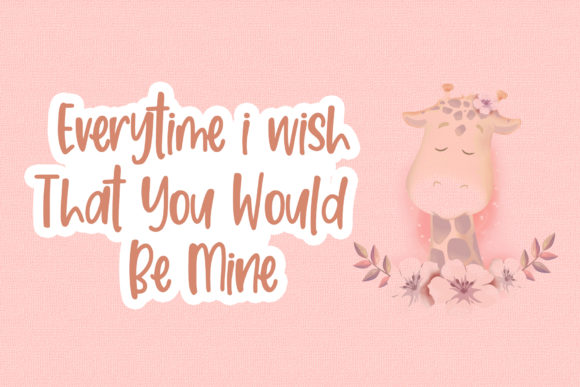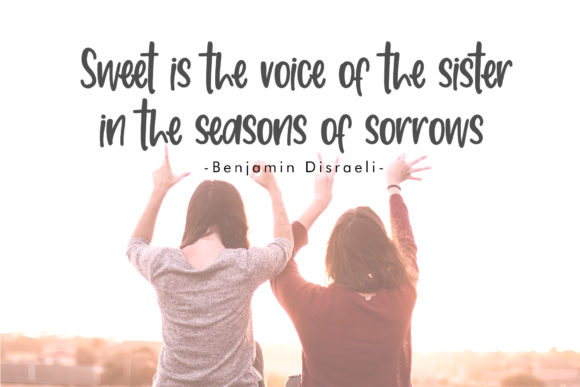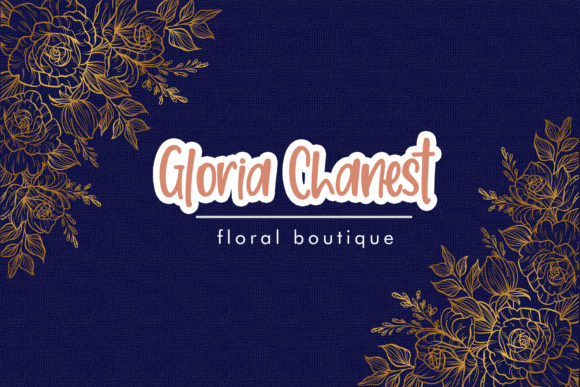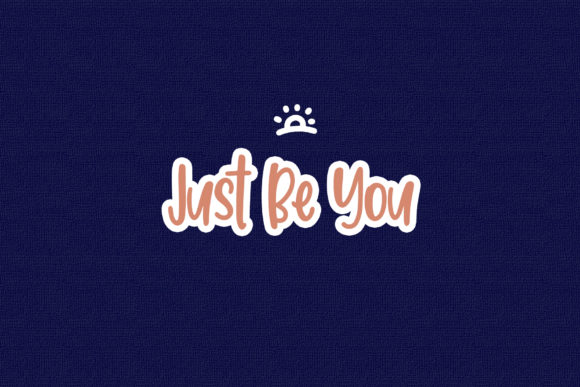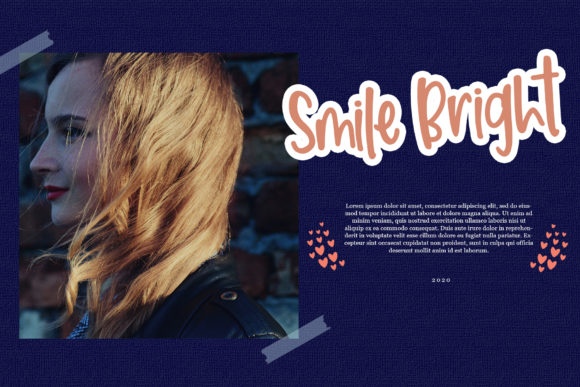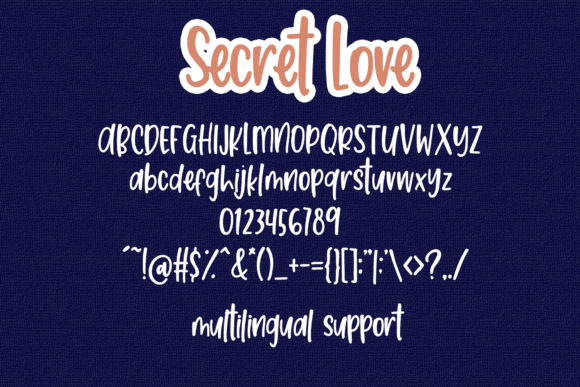
Introduction to Secret Love Font Font
Fonts play a crucial role in design, and the Secret Love Font font is a typeface that brings both character and versatility to any project. Whether you’re working on a branding project, a website, or a print design, the Secret Love Font font offers a unique style that can elevate your work.
Secret Love is a sweet, romantic yet versatile font for a wide range of applications.
Key Features of Secret Love Font Font
Why Choose Secret Love Font Font?
The Secret Love Font font is more than just a typeface – it’s a design tool that helps you communicate your message with style and clarity. Its unique character set and versatile design make it suitable for a wide range of applications, from elegant invitations to bold headlines.
With its carefully crafted letterforms and balanced proportions, the Secret Love Font font ensures readability and visual appeal across all mediums.
What makes Secret Love Font font special?
The Secret Love Font font stands out with its unique design, exceptional readability, and versatility across various design applications.